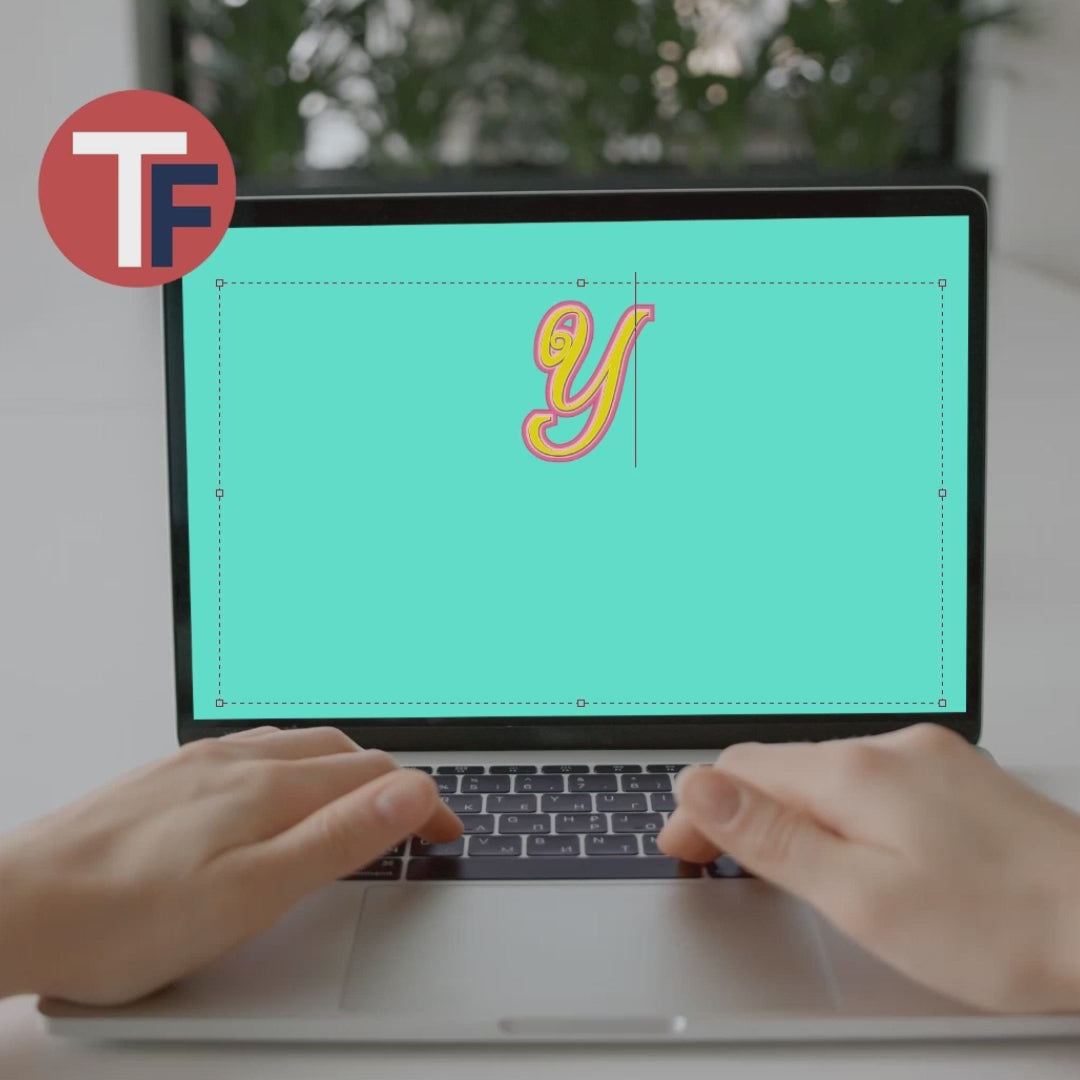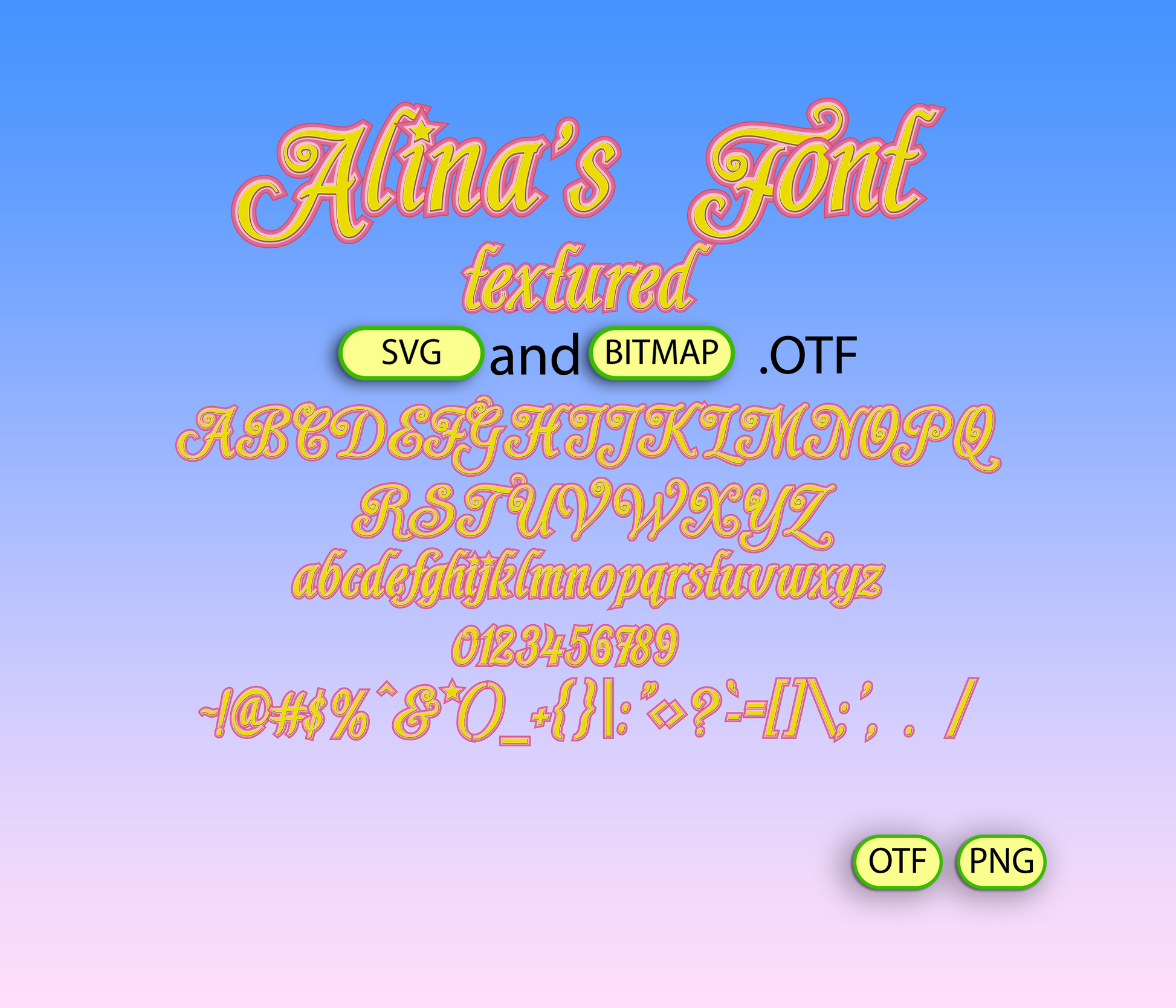
Moonlight Warrior Font Textured
Embrace the Magic with the Moonlight Warrior Font
Step into the enchanting world of Moonlight Warrior with our specially designed font, a tribute to the iconic anime that has captured the hearts of fans worldwide. This font embodies the grace, strength, and transformational magic of Moonlight Warrior and her fellow celestial guardians. Each character in the font is infused with the essence of their celestial powers and the show's unique blend of action, romance, and friendship. It's a font that resonates with the themes of empowerment and destiny, echoing the battle cries and tender moments that define the Moonlight Warrior universe.
The Moonlight Warrior font is versatile and ideal for a variety of creative and commemorative uses:
- Anime Themed Projects: Perfect for creating artwork, fan content, and merchandise inspired by the series.
- Event Invitations: Craft invitations for Moonlight Warrior-themed parties or anime conventions.
- Custom Apparel: Design clothing and accessories that resonate with fans of the show.
- Digital Content: Enhance social media posts and digital graphics with a magical twist.
- Educational Materials: Use in teaching resources to captivate and engage young audiences.
- Personalized Stationery: Create stationery sets that reflect the elegance and spirit of Moonlight Warrior.
- Home Decor: Design wall art, decals, and other items inspired by the anime’s themes.
- Brand Identity: Incorporate into branding for businesses with a fun, youthful, and empowering vibe.
- Gaming and App Design: Suitable for titles and interfaces in games or apps related to anime or magical themes.
- Creative Art Projects: Ideal for scrapbooking, crafting, and artistic projects inspired by Moonlight Warrior.
Picture a typeface that perfectly encapsulates the beauty, mystique, and energy of this beloved series. Our font is meticulously designed to echo the stylish and vibrant visuals of Moonlight Warrior, incorporating elements that reflect the elegance and power of the celestial guardians. With an extensive character set, including alphabets, numbers, and special symbols, it offers a versatile tool for creative projects that seek to bring a touch of Moonlight Warrior's magic and heroism.
- Textured and FREE Non-Textured Variants: Choose between a magical textured style or a sleek, non-textured version for various design needs.
- Extensive Character Set: Offers a wide range of characters for comprehensive design possibilities.
The Moonlight Warrior-inspired font is more than just a typeface; it's a celebration of the magical and empowering world of Moonlight Warrior and her celestial guardians.